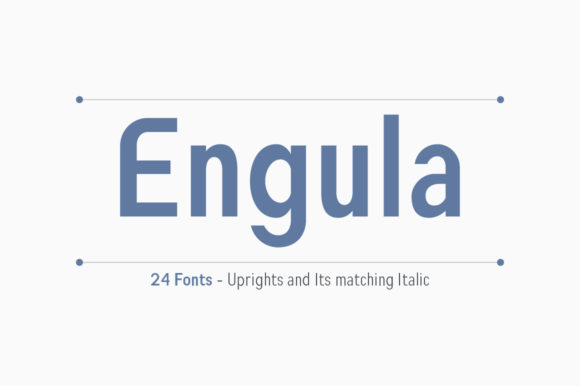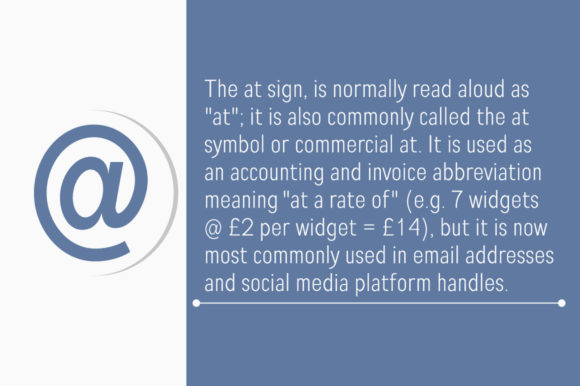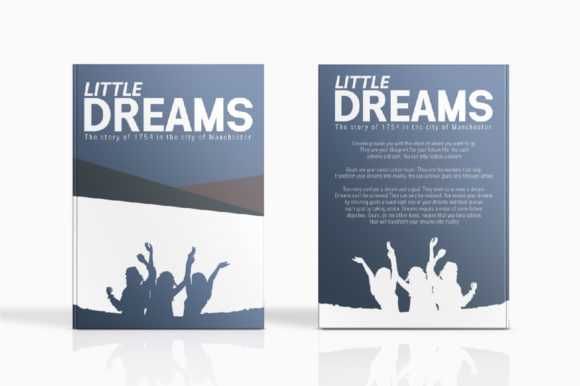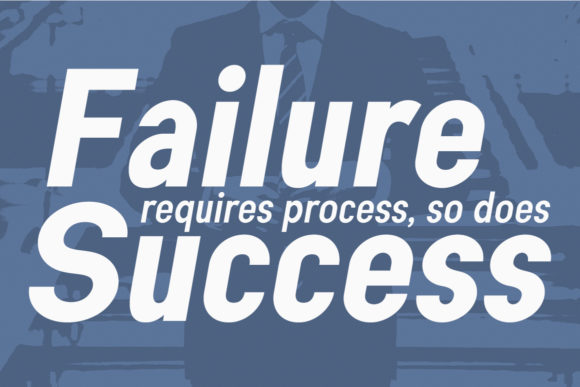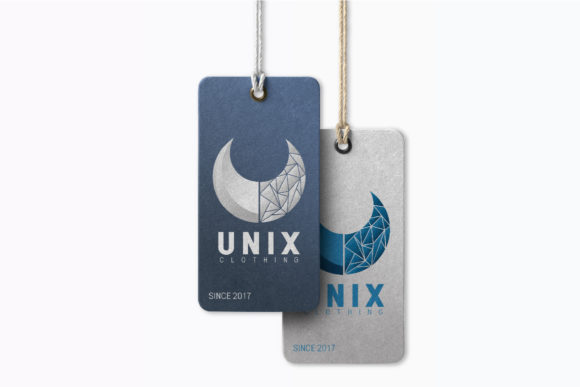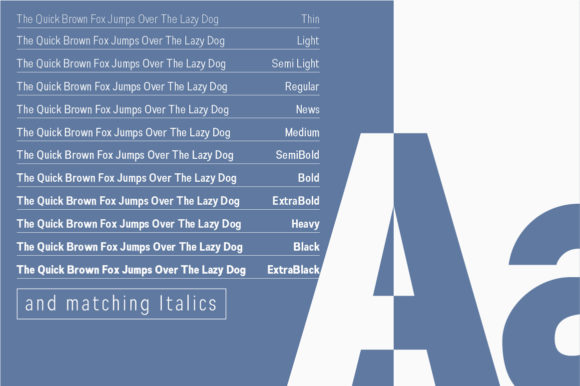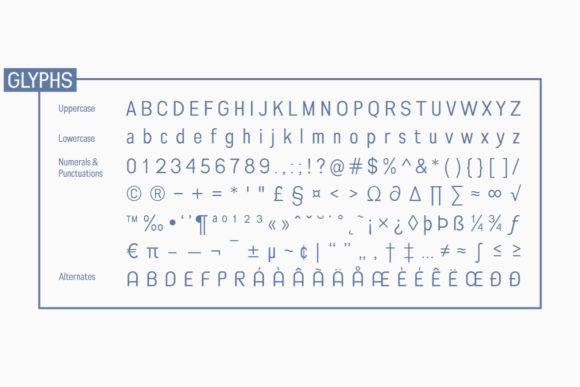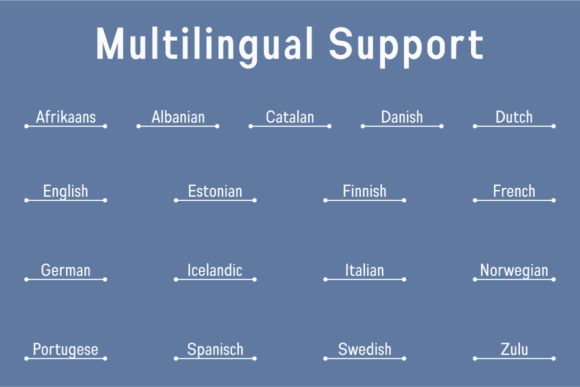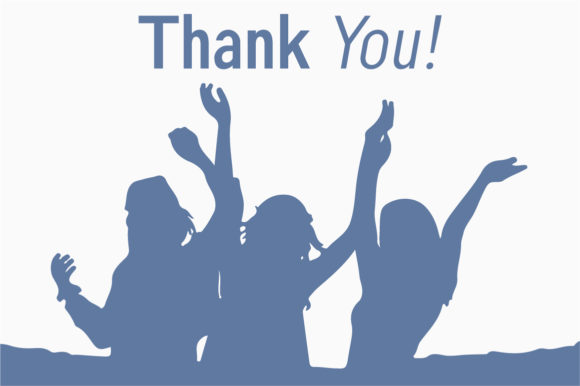
HomeSans Serif FontsEngula Font Sans Serif Fonts Engula Font FacebookTwitterPinterestWhatsApp Engula Font 1 of 9 About Engula Font Engula is an extraordinary sans serif font family. It consists of 24 fonts: 12 upright styles and 12 matching italic styles. DOWNLOAD NOW People also explored Amster Mondy Font Lazy Sushi Font Rostalia Font Omiley Font Snowflake Font Theresha Font Notebook V.3 Font Home Run Font Lordigart 181 0 TagsEngulaEngula Font Previous articleBigiebang FontNext articleNavada Font LEAVE A REPLY Cancel reply Comment: Please enter your comment! Name:* Please enter your name here Email:* You have entered an incorrect email address! Please enter your email address here Website: Save my name, email, and website in this browser for the next time I comment. Personal Use Free Gupis Personal Use Free Read more about this font Mahisya Personal Use Free Read more about this font Thruster Personal Use Free Read more about this font Bintang Noela Personal Use Free Read more about this font BLOG Exploring Font Trends Shaping Communication in the Digital Era Fonts, like all design elements, are subject to trends. They play a crucial role in communicating a brand's personality,... Where to Buy American Fonts Online in 2024 Using Fonts in Digital Marketing: Tips to Strengthen Your Brand Identity Top 7 Google Fonts Alternatives for Faster and Privacy-Friendly Web Design (2025)